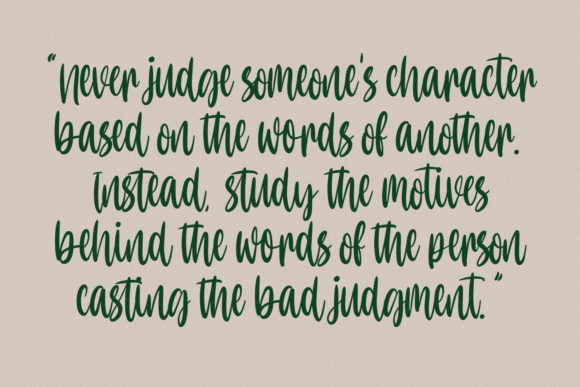
Hello Rissha Font
db-ku.com - Script & Handwritten -- Hello Rissha is a fancy handwritten script font. It features medium contrast strokes, fun characters, ligatures and alternates. Add it confidently to your projects, and you will love the results.